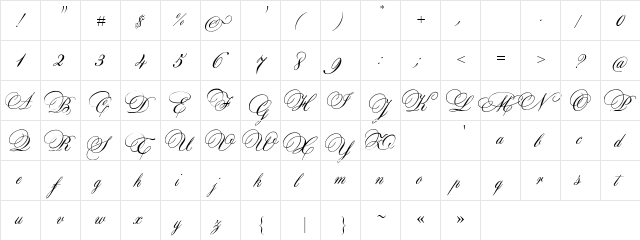
Aurora Script Regular
| Foundry | Ivan Zeifert & Alexandra Gophmann works |
| Designer | Ivan D Zeifert & A.L.G |
Design Context for Aurora Script Typeface
Aurora Script brings a calligraphic fluidity to the page — its connecting strokes and expressive curves give it an unmistakably human quality.
Font Pairing: Combine Aurora Script with a simple geometric sans for maximum contrast — the tension between flowing curves and clean structure is a classic typographic pairing.
Pro Tip: Use Aurora Script for short runs of text — names, titles, or taglines. Extended body copy in script faces tires the eye quickly.